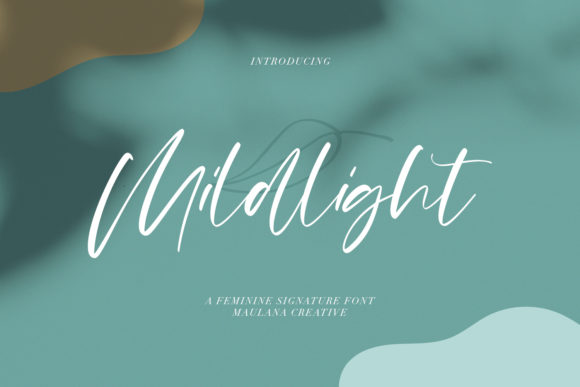
Immerse yourself in the enchanting world of Mildlight, a captivating script font that will ignite your creative spark and elevate your designs to new heights. Crafted with meticulous care by the visionary Maulana Creative, Mildlight embodies the essence of beauty and grace, enchanting all who behold it.
Let Mildlight be your beacon of inspiration as you embark on a creative journey of self-expression. Its exquisite curves and delicate strokes will add a touch of sophistication to any project, whether you're crafting heartfelt wedding invitations, expressing your gratitude with elegant thank-you cards, or captivating your audience with thought-provoking quotes.
Mildlight's versatility knows no bounds. It seamlessly transforms logos into works of art, imbuing business cards with a touch of professional elegance, and adding a dash of charm to every greeting card you send. Its adaptability extends to any design endeavor that yearns for a personalized touch, beckoning you to unleash your boundless imagination.
With Mildlight, every stroke of your creative brush becomes a testament to your impeccable taste. Its beauty transcends the digital realm, leaving an unforgettable impression that lingers long after the page is turned. Let Mildlight be your creative muse, guiding you towards designs that exude sophistication and timeless appeal.